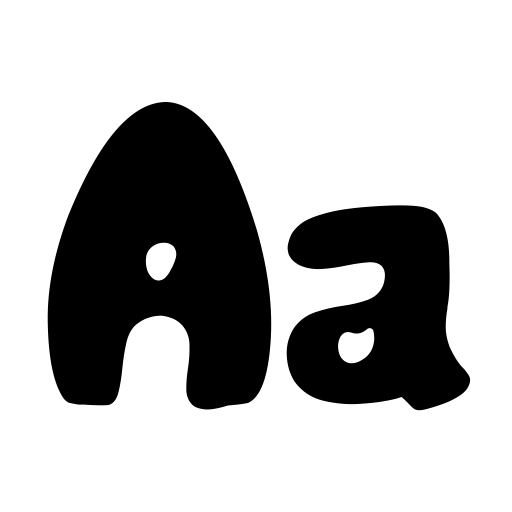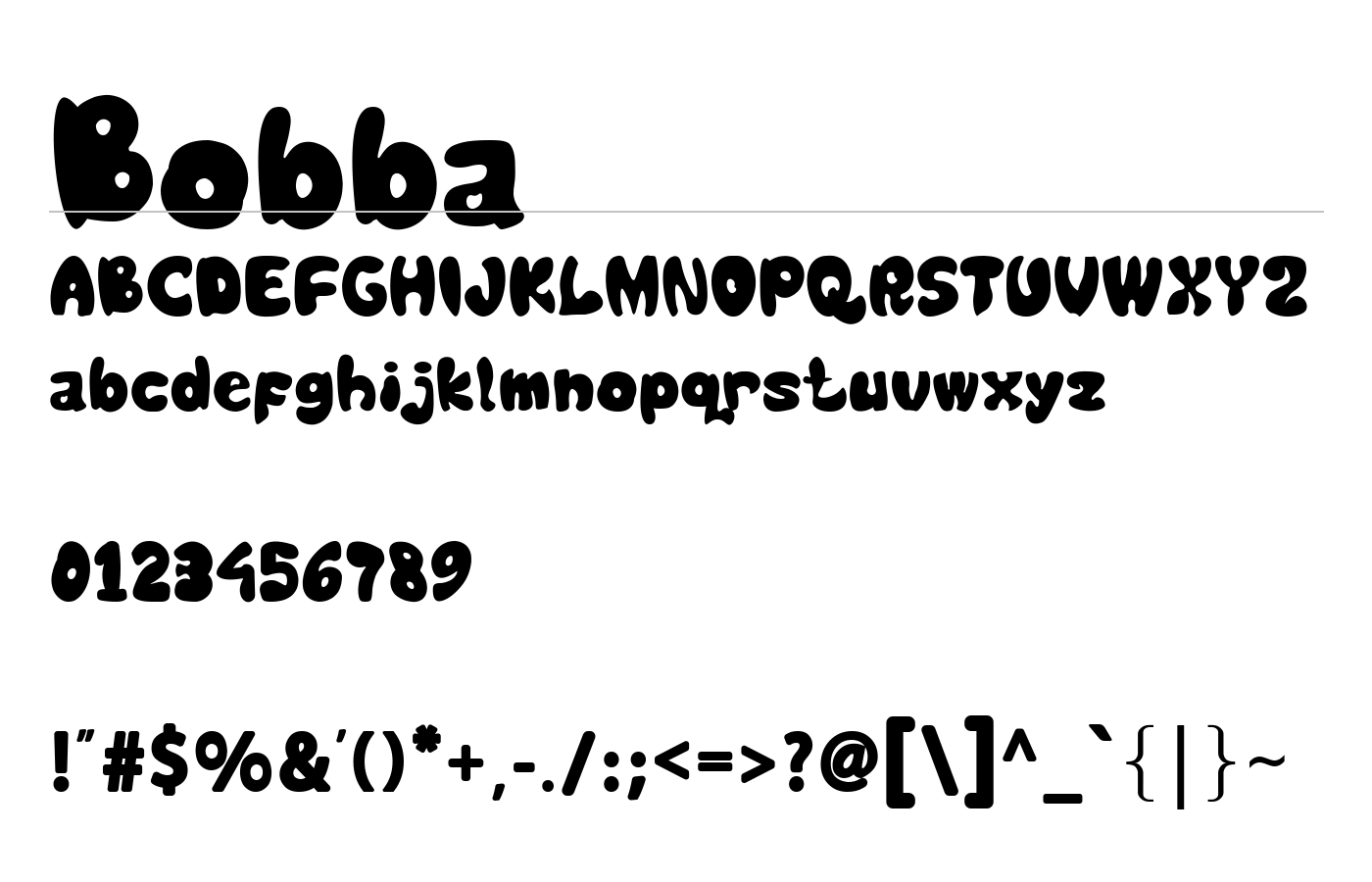
Bobba is a playful and bold sans serif font with rounded, bubble-like letterforms that create a friendly, informal vibe. Its thick weight and soft, curvy shapes make it perfect for fun, casual designs such as children's books, posters, and branding that aims to feel approachable and lighthearted. This font shines in headlines and decorative uses where a lively and whimsical personality is desired.
Bobba Font